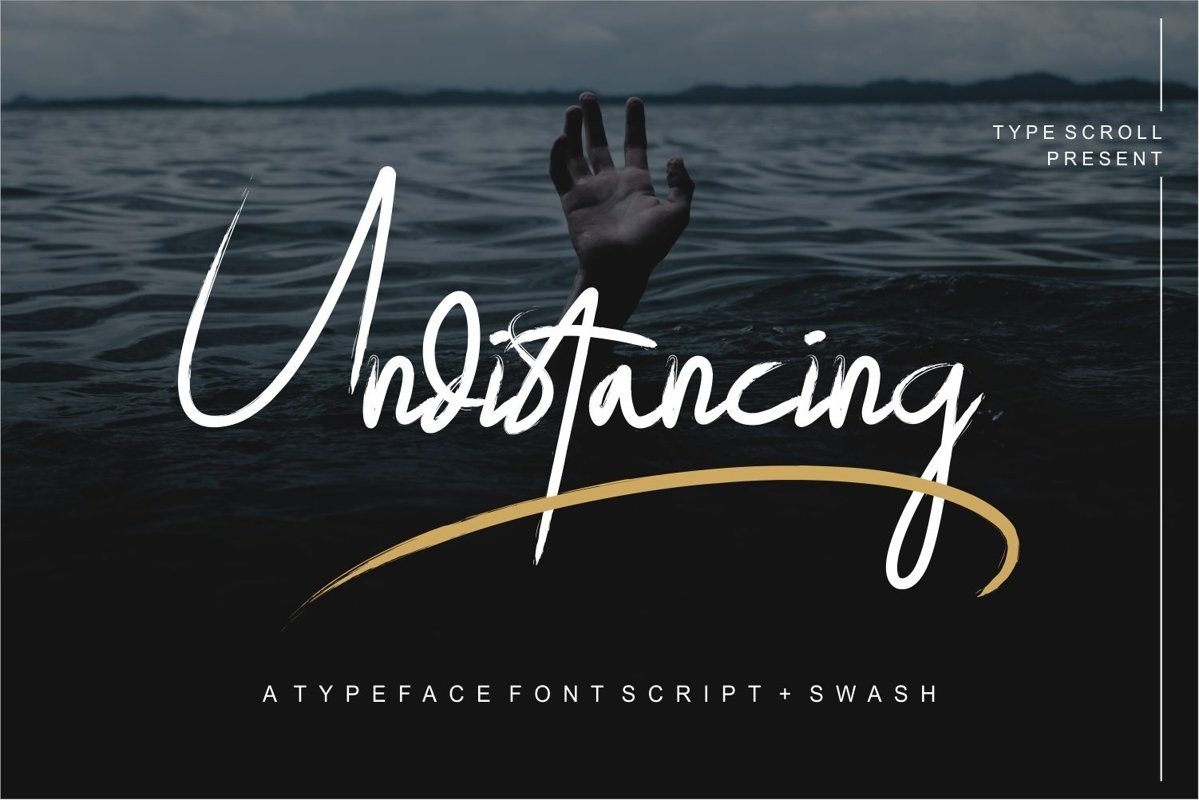
Undistancing // a Typface font Script with Swash
Undistancing Swash
Undistancing
Undistancing a typeface font script is an awesome brush font. It has a modern style and is perfect for branding projects, logo, wedding designs, social media posts, advertisements, product packaging, product designs, label, photography, watermark, invitation, stationery and much more!